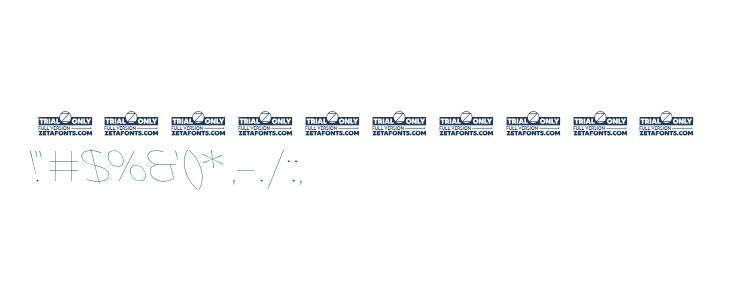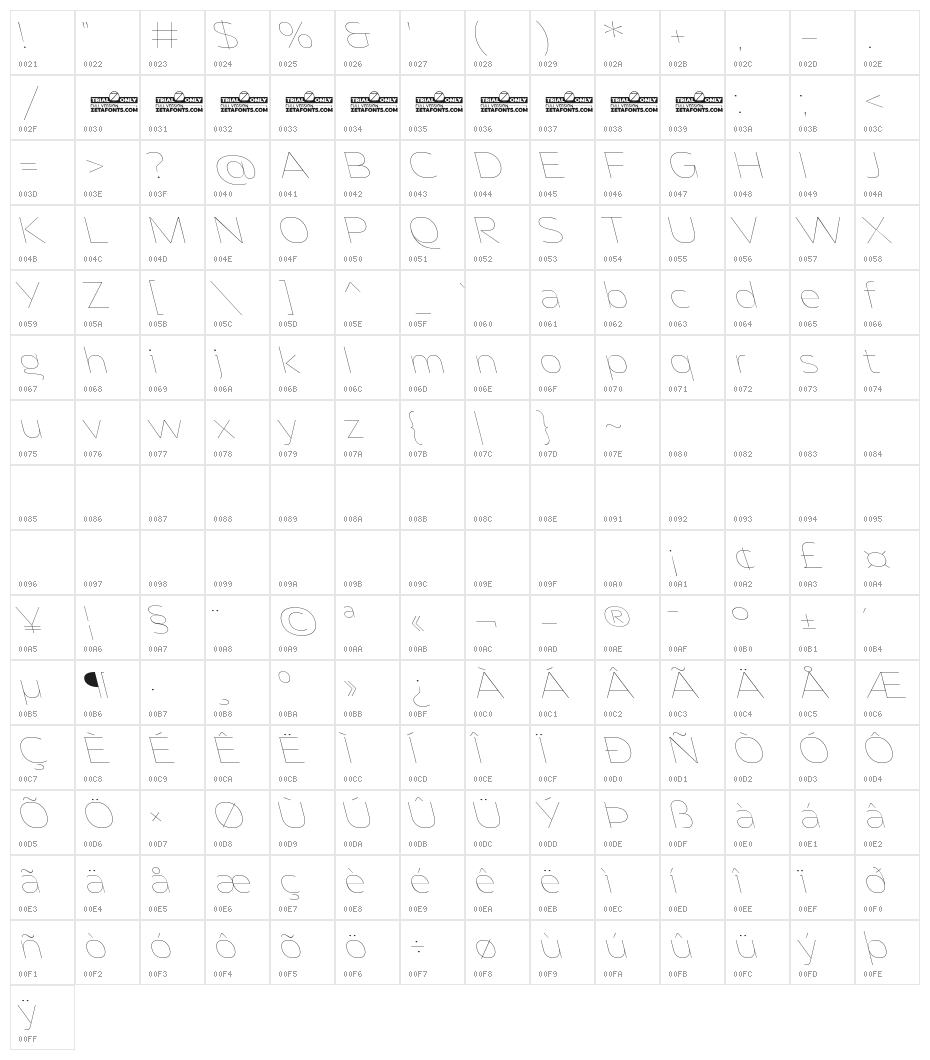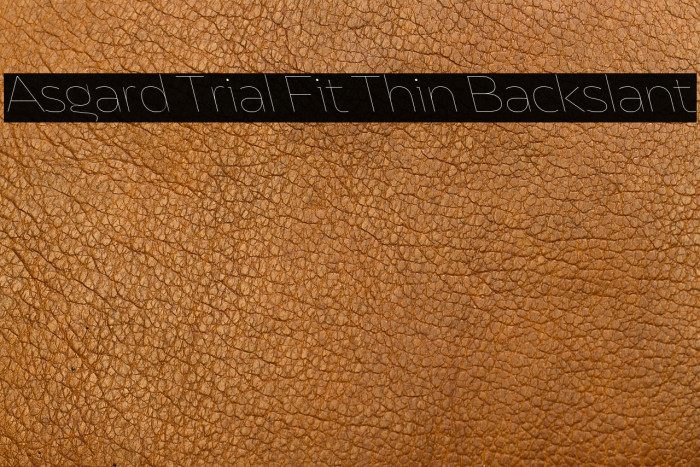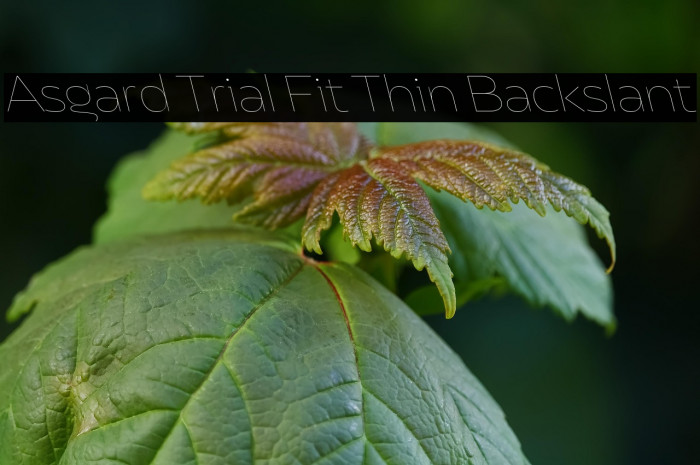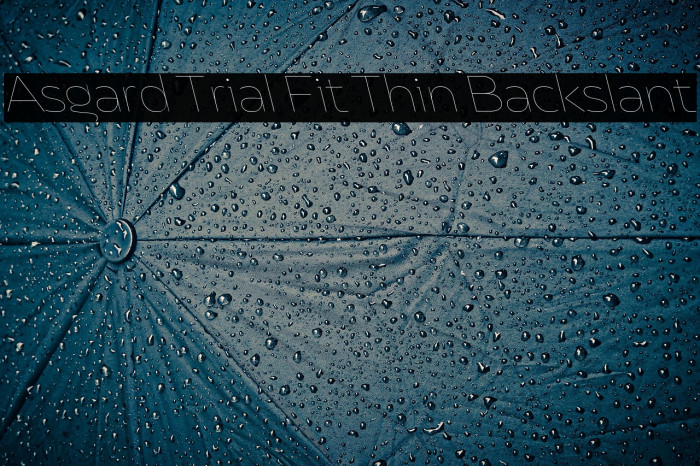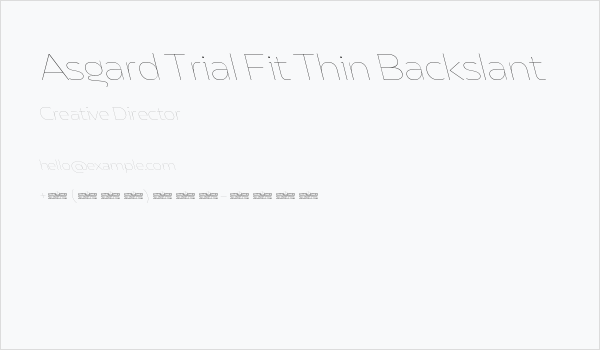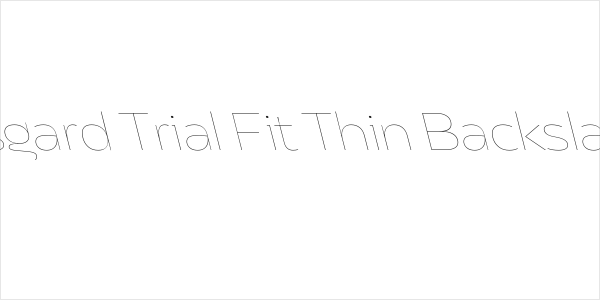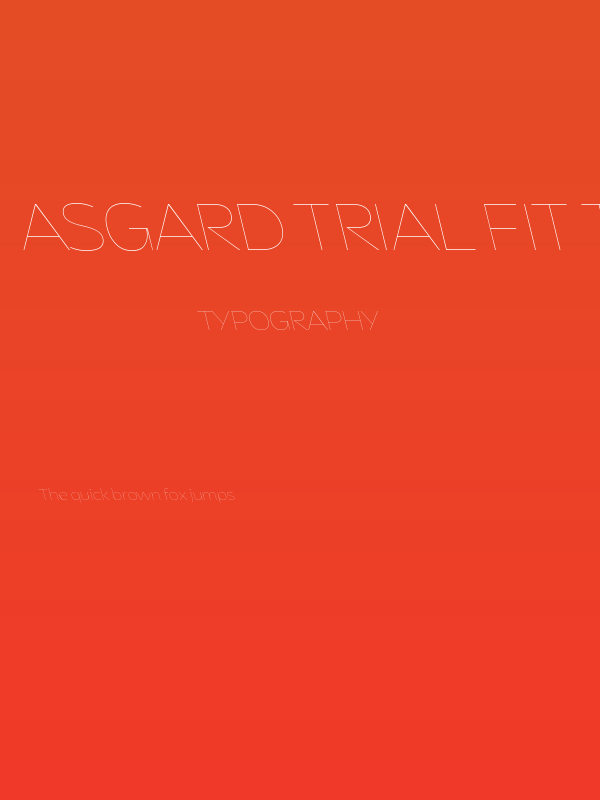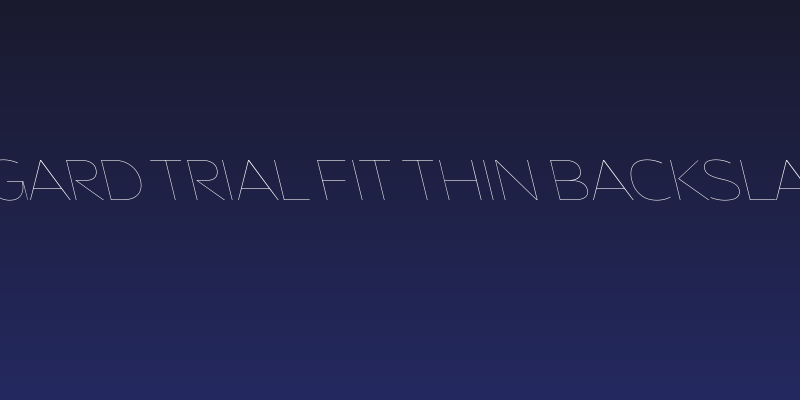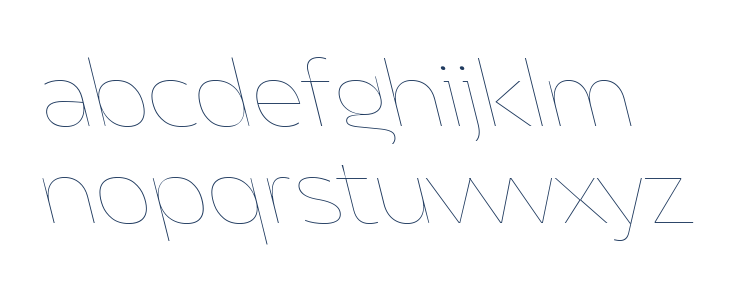
Asgard Trial Fit Thin Backslant Font
Asgard Trial Fit Thin Backslant Description
This font features a sleek and modern design with a thin, backslant style that gives it a unique and contemporary look. The characters are elegantly crafted with a minimalist approach, emphasizing clean lines and simplicity. The uppercase and lowercase letters maintain a consistent thinness, contributing to a cohesive aesthetic. The font's special characters, including punctuation and symbols, are designed with the same attention to detail, ensuring uniformity across all elements. Its backslant orientation adds a dynamic and forward-thinking feel, making it suitable for modern design projects.